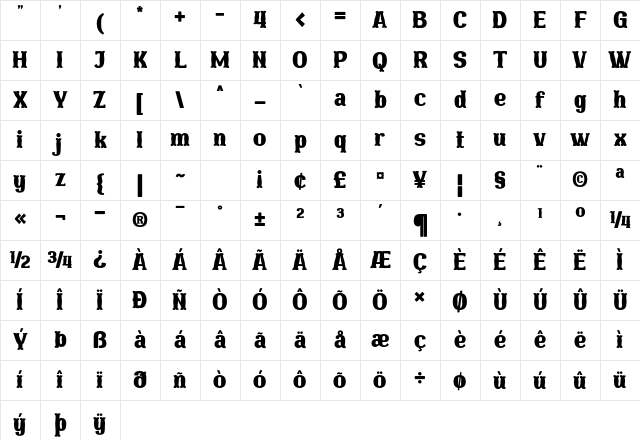
Complete YAKSOMTRIAL Regular glyph index. Displaying only characters natively supported by YAKSOMTRIAL Regular font.
YAKSOMTRIAL is a composed and adaptable typeface that performs quietly and consistently across a wide range of design contexts.